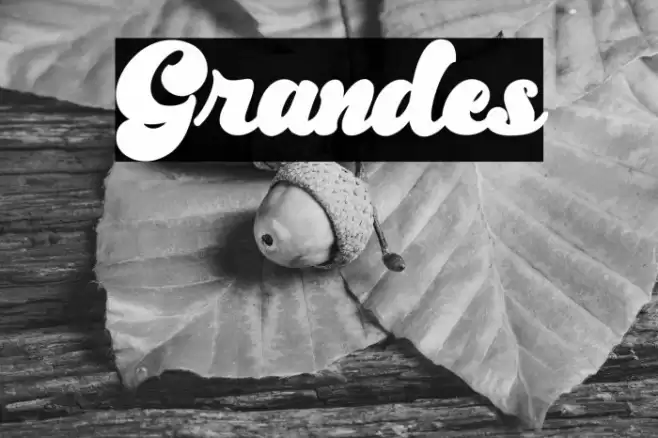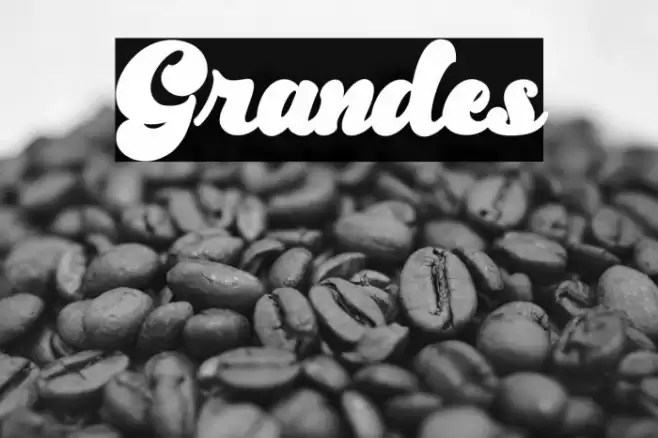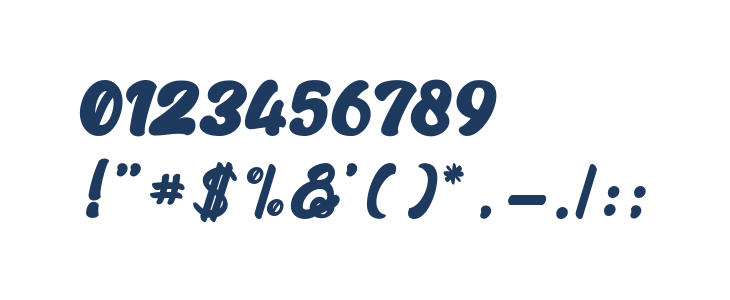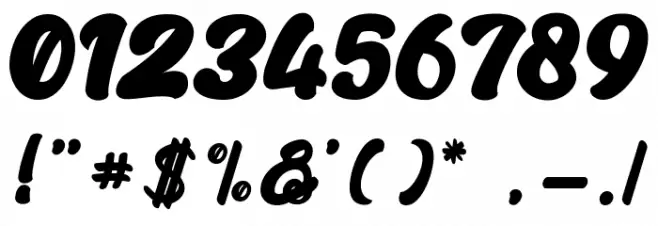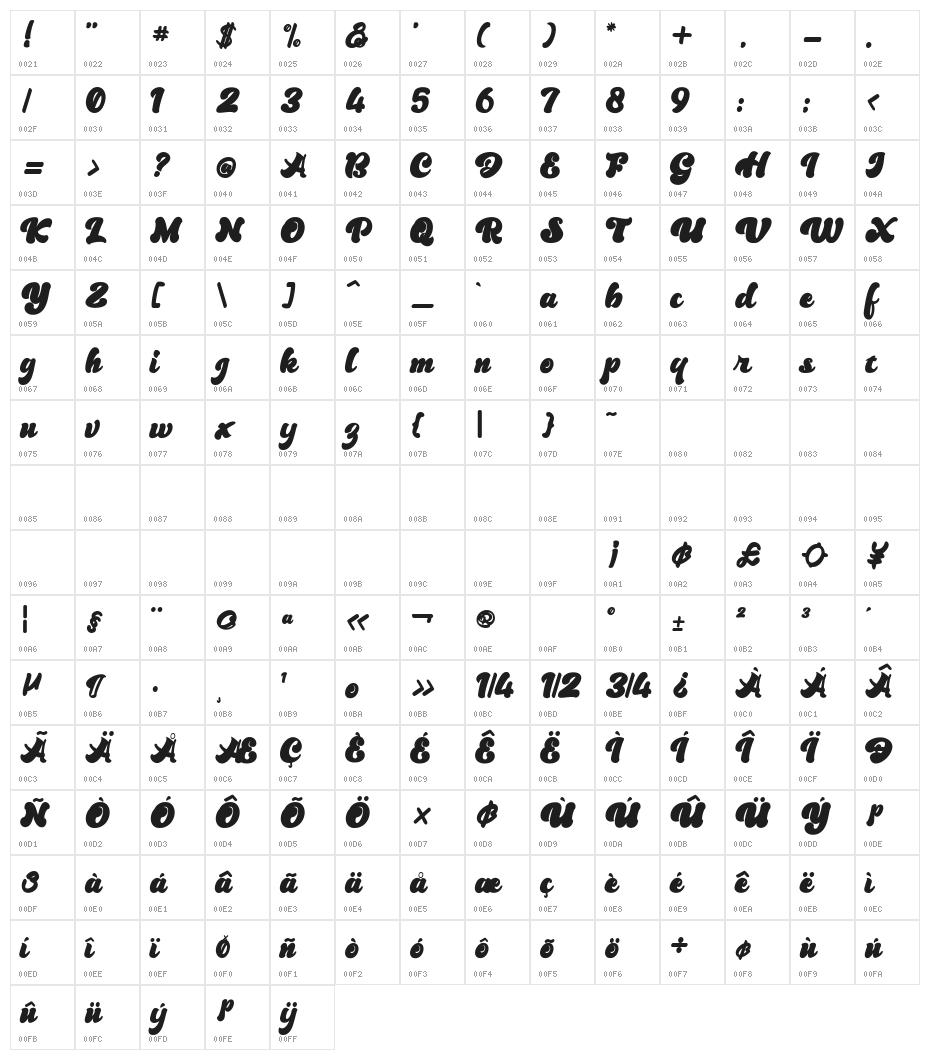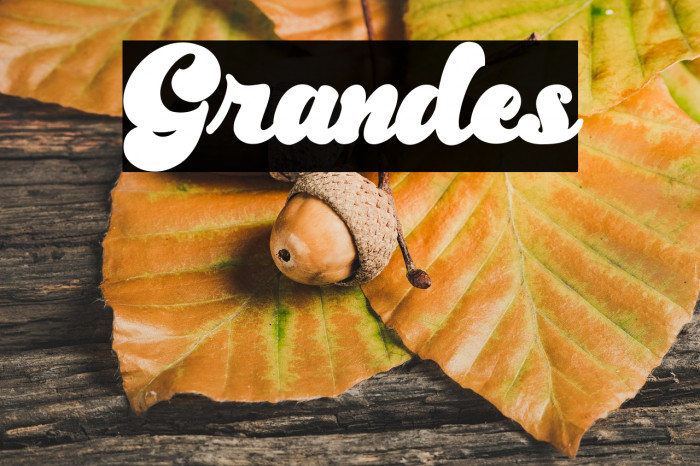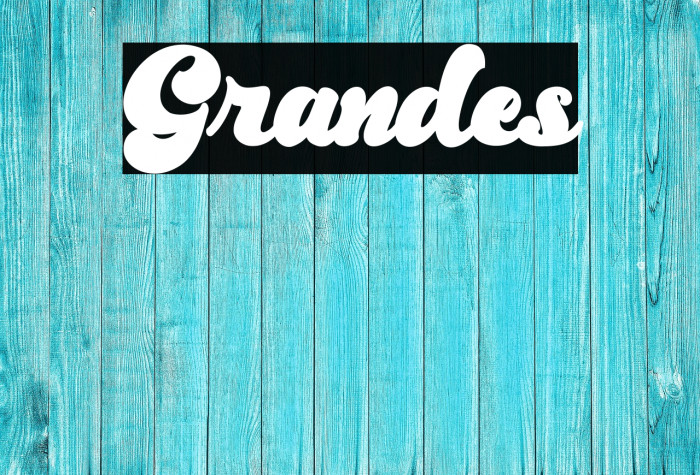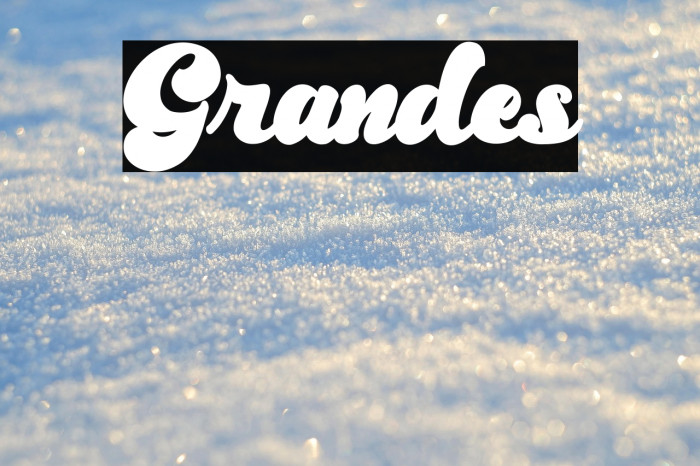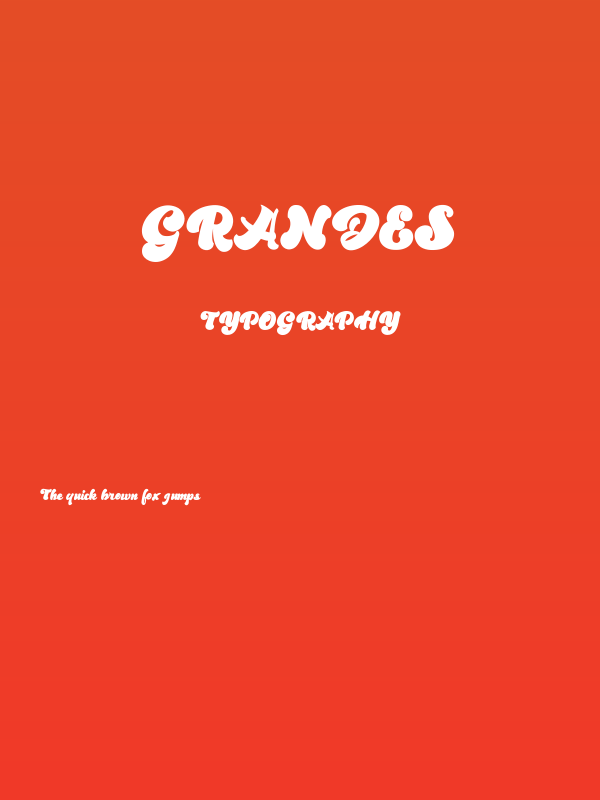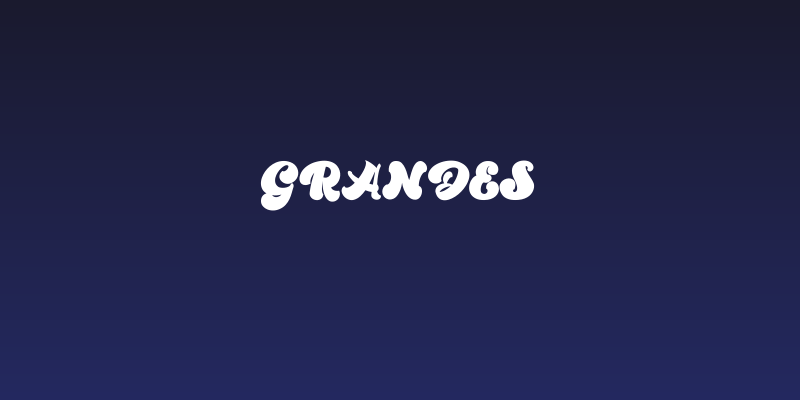
Grandes Font
Grandes Description
This font features a bold and expressive script style with a strong presence. The characters are connected, giving it a flowing and dynamic appearance. The strokes are thick and rounded, providing a sense of warmth and friendliness. The uppercase letters are slightly more elaborate, while the lowercase letters maintain a consistent rhythm. The numerals are bold and clear, matching the overall style. Special characters are well-integrated, maintaining the font's cohesive look. This font is ideal for projects that require a touch of personality and flair.
A bold, expressive script font with connected, rounded characters from Regular fonts.
- Font: Grandes
- Proposed Projects: Ideal for branding, packaging, invitations, and posters where a personal touch is desired.
- Character Spacing: Tight